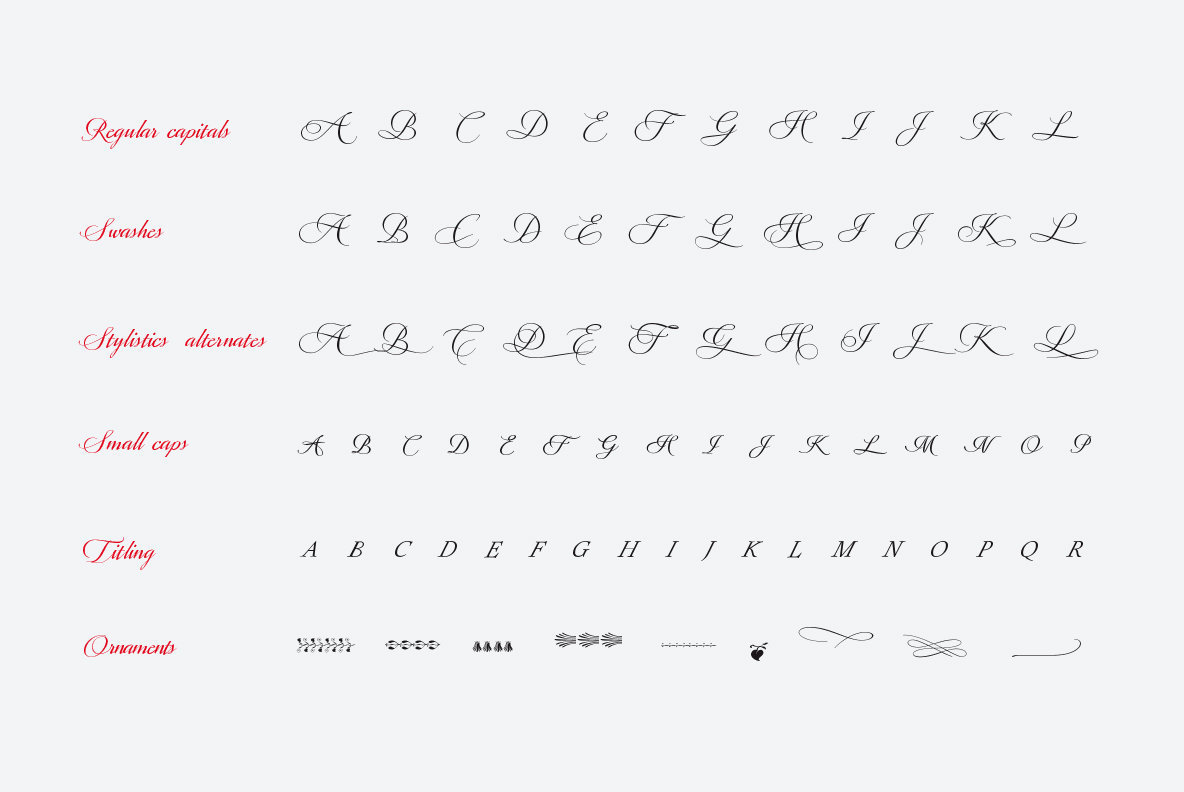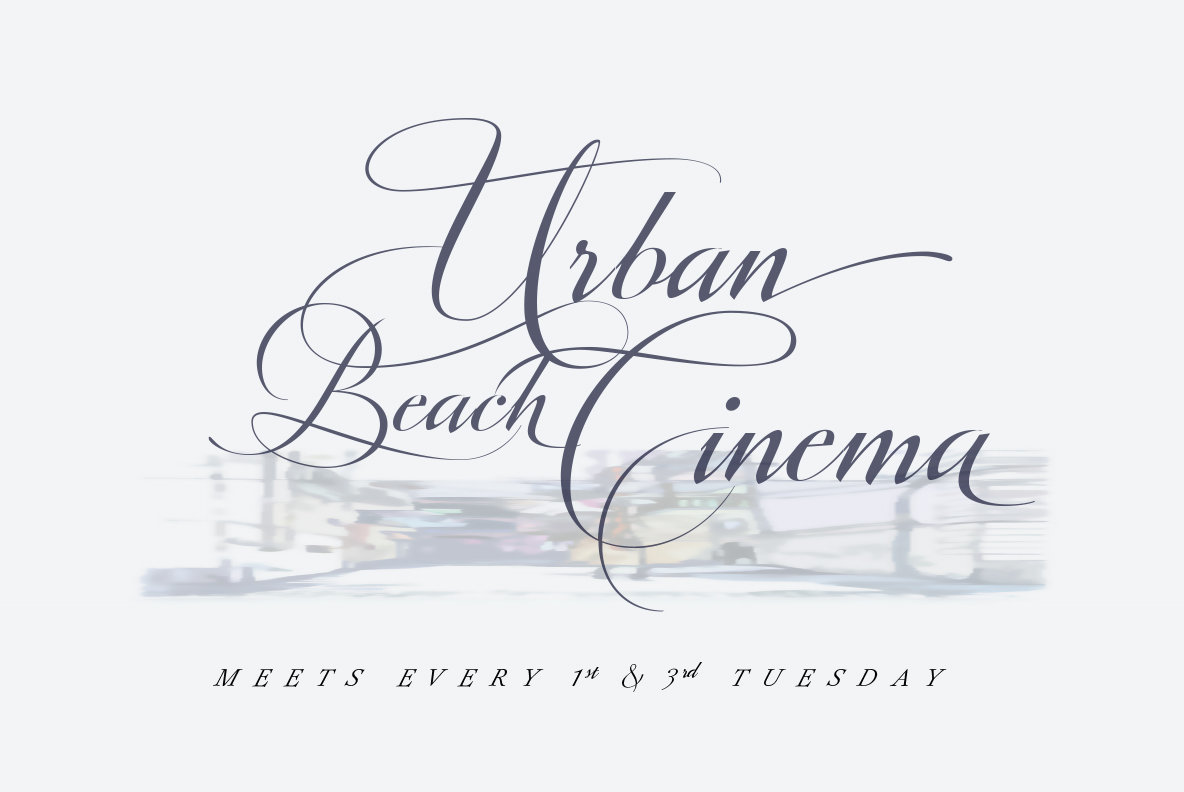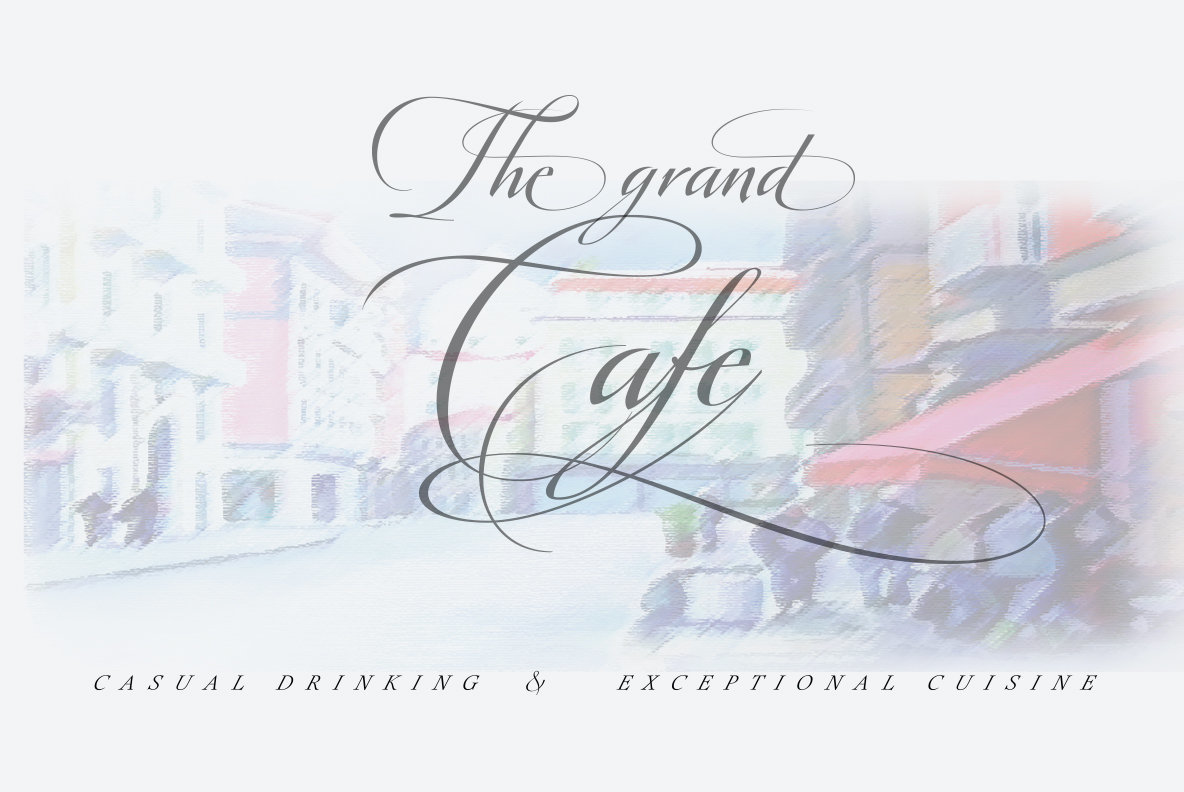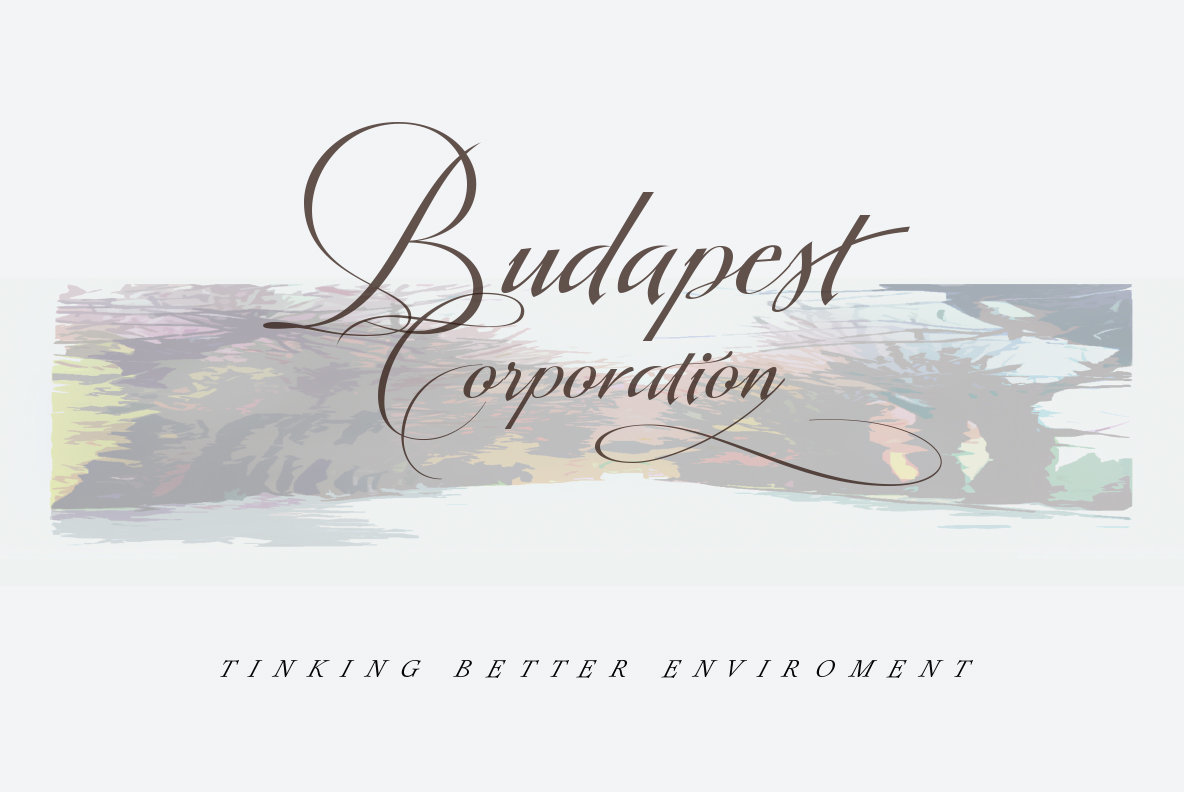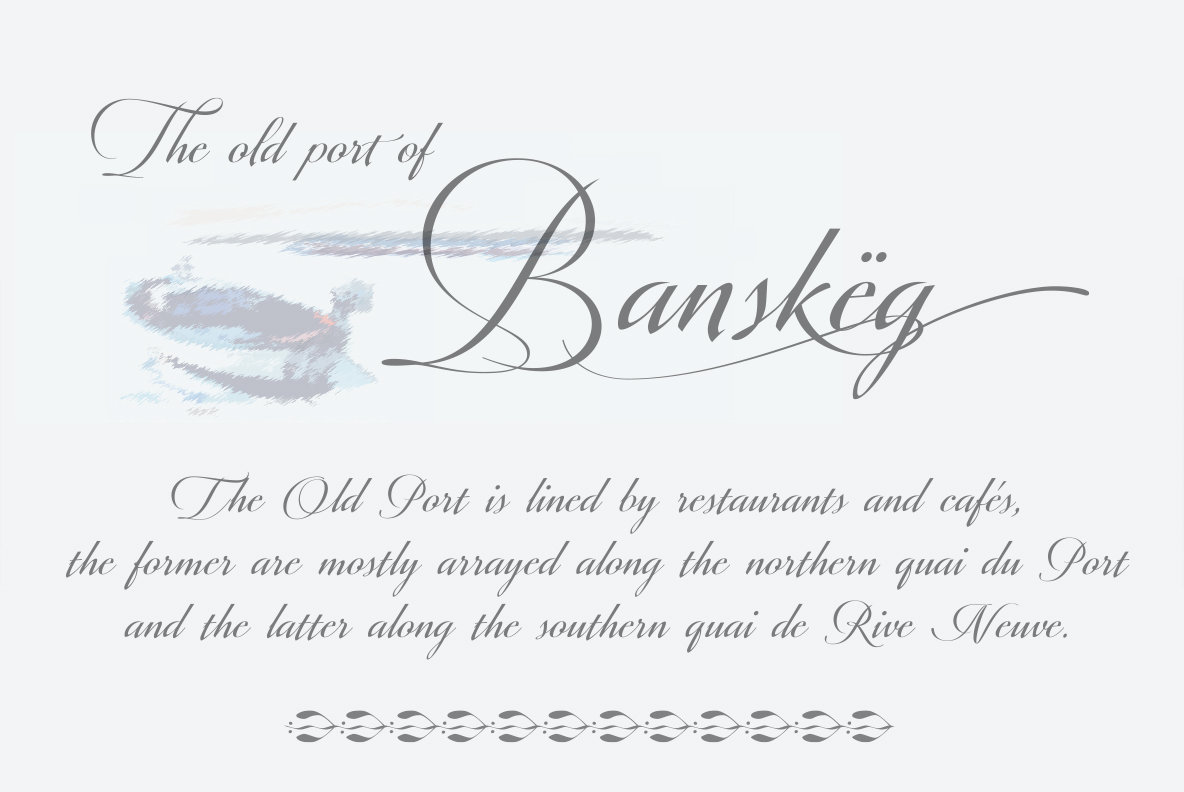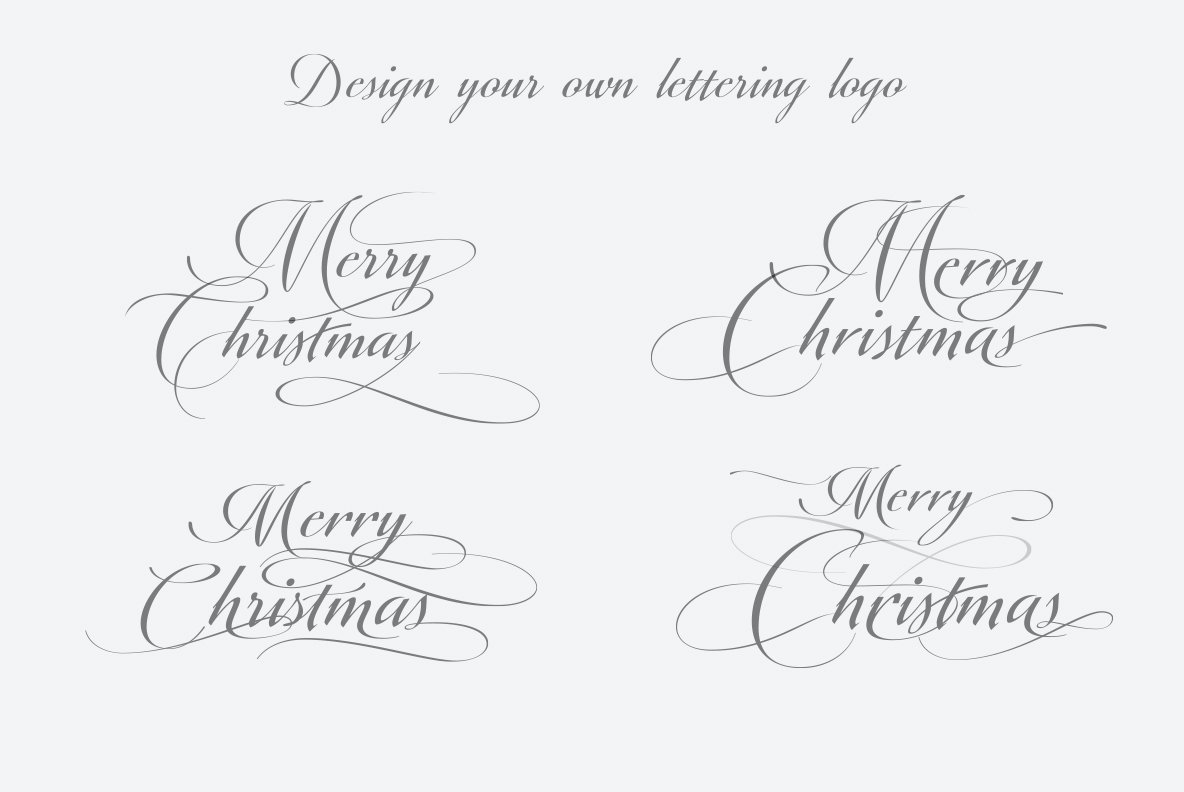
Valentia Font
Valentia
Valentia is an elegant casual and readable font, this new script typeface is based on Copperplate style.
Valentia has been drawn with spontaneous strokes and slightly contrasting thicknesses. The capital letters are full of expressiveness, with very dynamic "ductus" and linked ends, which allow to typeset your design with a subtle finishing touch.
Contains small caps and titling. Decoration variables with its own terminal forms and initial forms. You can use Standard and discretionary ligatures, swashes, stylistic and contextual alternate, old style figures, CE languages and ornaments.
Designer: Olcar Alcaide
Publisher: Eurotypo